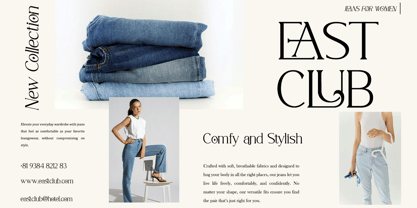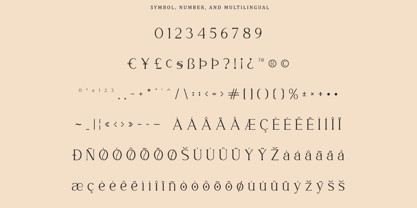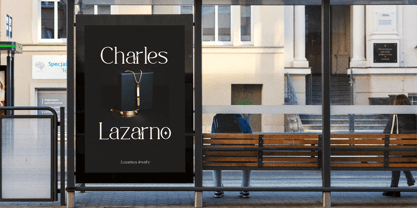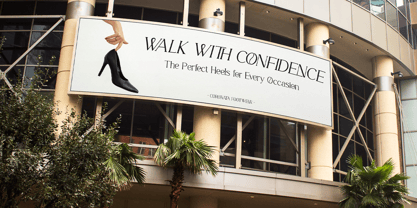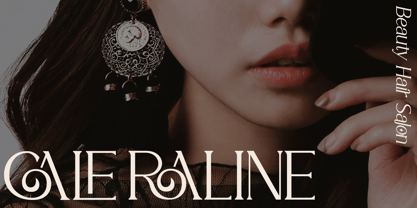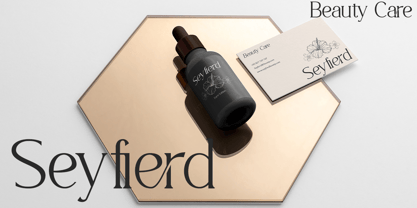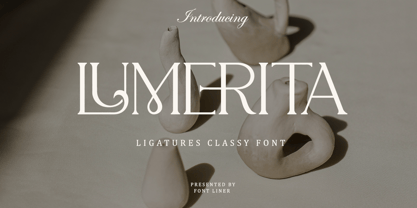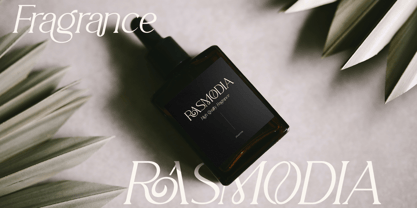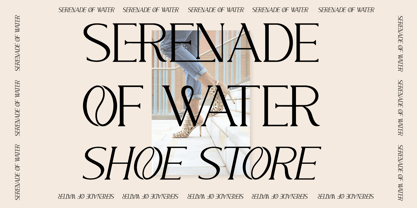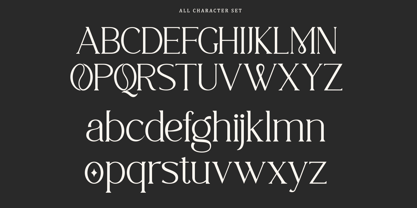
Lumerita
by Font Liner
The Lumerita Font Family was designed by Ghina Luthfiarieska and published by Font Liner. Lumerita contains 2 styles and family package options.
Lumerita is a classy ligature serif font and perfect multipurpose font for any project, with high contrast glyphs, giving it a feminine and masculine quality, modern, and easy to read. Great in layout design for quotes or body copy, best used as a display for headings, logos, branding, magazines, product packaging, invitations, and more. This font is easy to use and has OpenType features.
- Lumerita
- Lumerita Italic
- 50+Stylistic Ligatures
- Multilingual Support